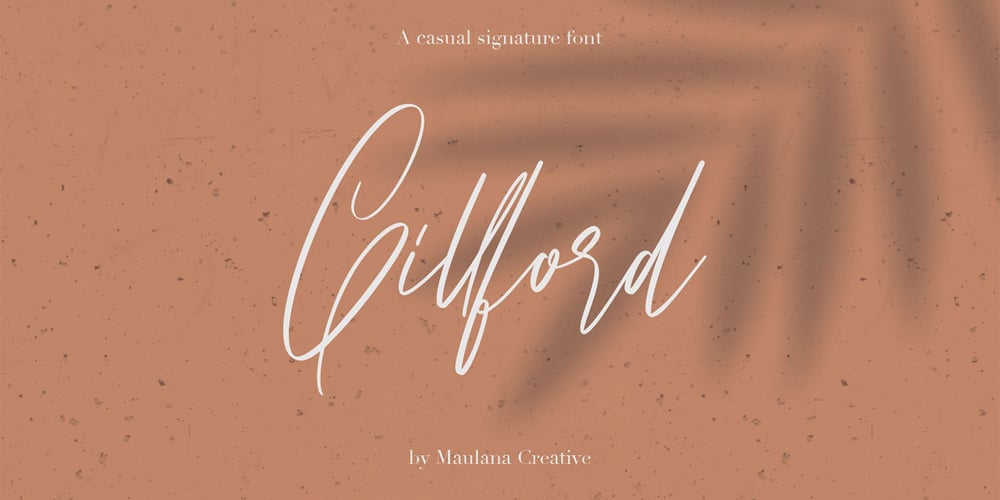
Gillford Font Family was designed by Gilang Maulana and published by Maulana Creative. Gillford contains 1 styles and family package options. Give your designs an authentic handcrafted feel. “Gillford Signature Font” is perfectly suited to signature, stationery, logo, typography quotes, magazine or book cover, website header, clothing, branding, packaging design and more.